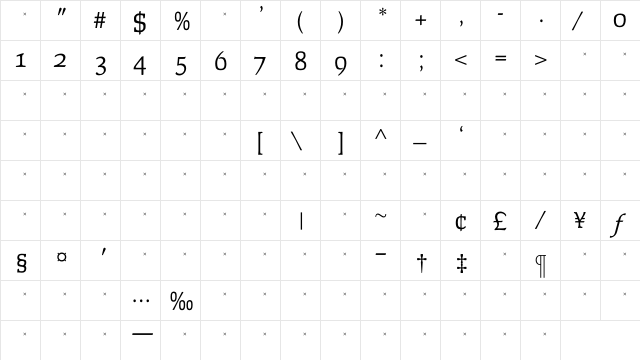
FaustLightOldStyleFigsTab Regular
Design Context for FaustLightOldStyleFigsTab Typeface
FaustLightOldStyleFigsTab brings classic typographic sensibility to the table — its serifs and measured letterforms reflect centuries of print heritage. The delicate stroke weight brings airiness and refinement to layouts.
Pro Tip: Set FaustLightOldStyleFigsTab at slightly larger body copy sizes than you would a regular-weight serif to compensate for its delicate stroke contrast.